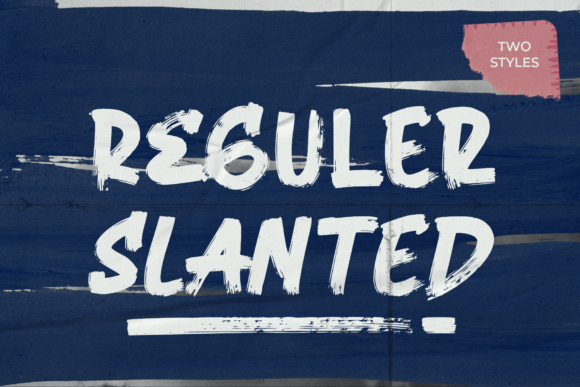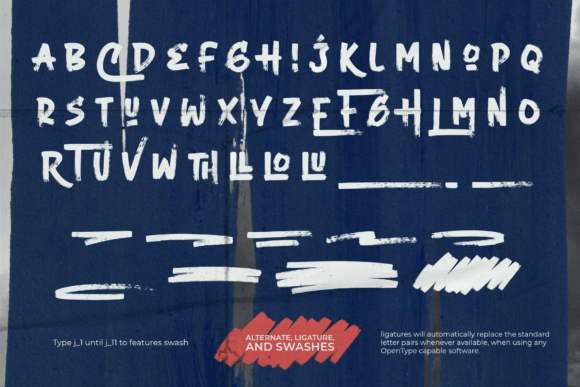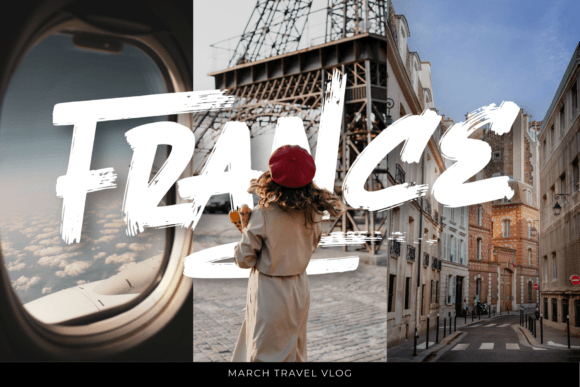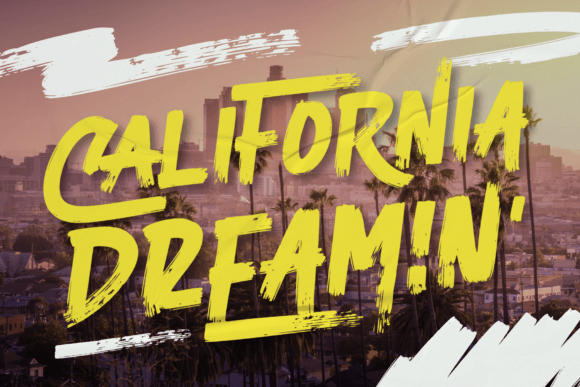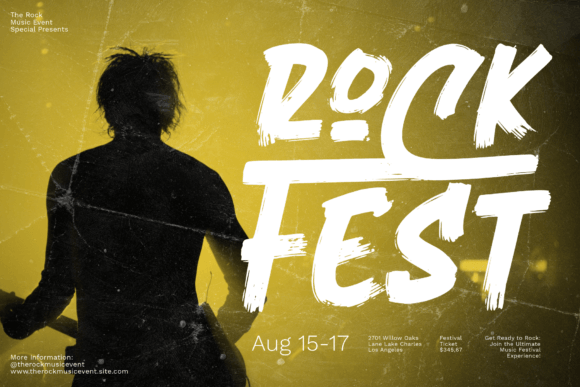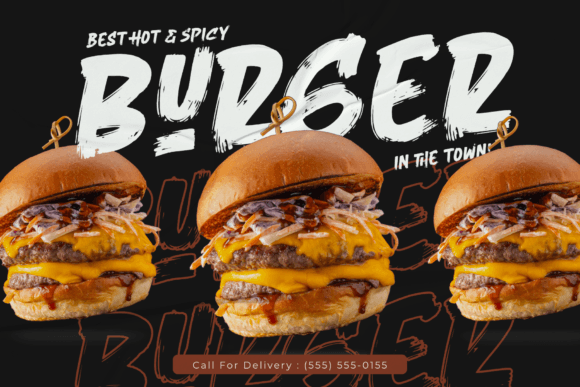
Introduction to Jhino Font
As a designer, have you ever been stuck trying to come up with the perfect font to capture the essence of your creative project? The struggle is real, especially when you’re working on a high-quality design that demands attention and style. That’s where the Jhino Font comes in – a game-changing, all-caps brush font designed to make your text stand out with bold, artistic flair.
Imagine a font that’s not only visually striking but also exudes a personal and handcrafted touch, making it perfect for posters, headlines, and branding. The Jhino Font is that and more, featuring unique brush strokes that give it a one-of-a-kind feel. Plus, with an extra slanted version, you can add even more style to your design.
Key Features of Jhino Font
- High-quality design: Jhino Font offers a unique and stylish design that can elevate any creative project.
- Transparent background: This feature makes it easy to use Jhino Font on any background, providing a seamless design experience.
- High-resolution design: Jhino Font is designed at a high resolution, ensuring that it looks crisp and clear on high-resolution displays.
- Customizable: Jhino Font can be easily customized to fit the needs of any creative project, making it a versatile design resource.
Honest Review: Jhino Font
As a designer, I’m always on the lookout for high-quality design resources to elevate my creative projects. Recently, I came across the Jhino Font, and I’m excited to share my thoughts on it.
One of the standout features of the Jhino Font is its transparent background, which makes it easy to use on any background without worrying about visibility issues. Additionally, the font is designed with a clear and readable structure, making it perfect for digital and print projects.
While the Jhino Font is an excellent addition to any designer’s toolkit, there are a few limitations to consider: ⚠️ The font is limited in its character set, which may not be ideal for projects that require a wide range of special characters or languages. Additionally, the font’s style may not be to everyone’s taste, so it’s essential to test it out in your specific design context.
Overall, I’m impressed with the Jhino Font, and I think it’s a valuable resource for any designer working on creative projects. With its high quality, versatility, and transparent background, it’s definitely worth checking out.
- High-quality design with a modern aesthetic
- Limited character set
- Style may not appeal to everyone
How to Use Jhino Font
Using Jhino Font in Creative Projects
The Jhino Font is a high-quality design resource that can be used in a variety of creative projects, such as logo design, branding, and typography-based art. You can use it in conjunction with other design elements to create a unique and eye-catching visual identity.
The Jhino Font is commonly used in design projects that require a clean and modern aesthetic. It’s particularly well-suited for use on transparent backgrounds, making it a popular choice for digital design and graphics.
Tips for Getting the Most Out of Jhino Font
To get the most out of the Jhino Font, experiment with different font sizes, colors, and combinations to create unique and visually appealing designs.